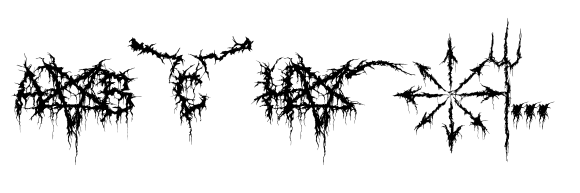
XXII Gory Bastard
by Doubletwo Studios
The XXII Gory Bastard Font Family was designed by Lecter Johnson and published by Doubletwo Studios. XXII Gory Bastard contains 1 styles. More about this family
The Bastard is the cheap alternative for you to easily create a logo for your band or whatever. It comes with a basic characterset and a little bunch of symbols and signs often used in the extreme music sector. Some classical stuff from Death- and Blackmetal like pentagrams and crosses, roots and branches and lots of other things. With all of these you’ll be able to customise your logo to the look of your interest. Open it up in your graphic-editing-application and be creative, play with it and find out what’s possible. Check out the
Designers: Lecter Johnson
Foundry: Doubletwo Studios
Original Foundry: Doubletwo Studios